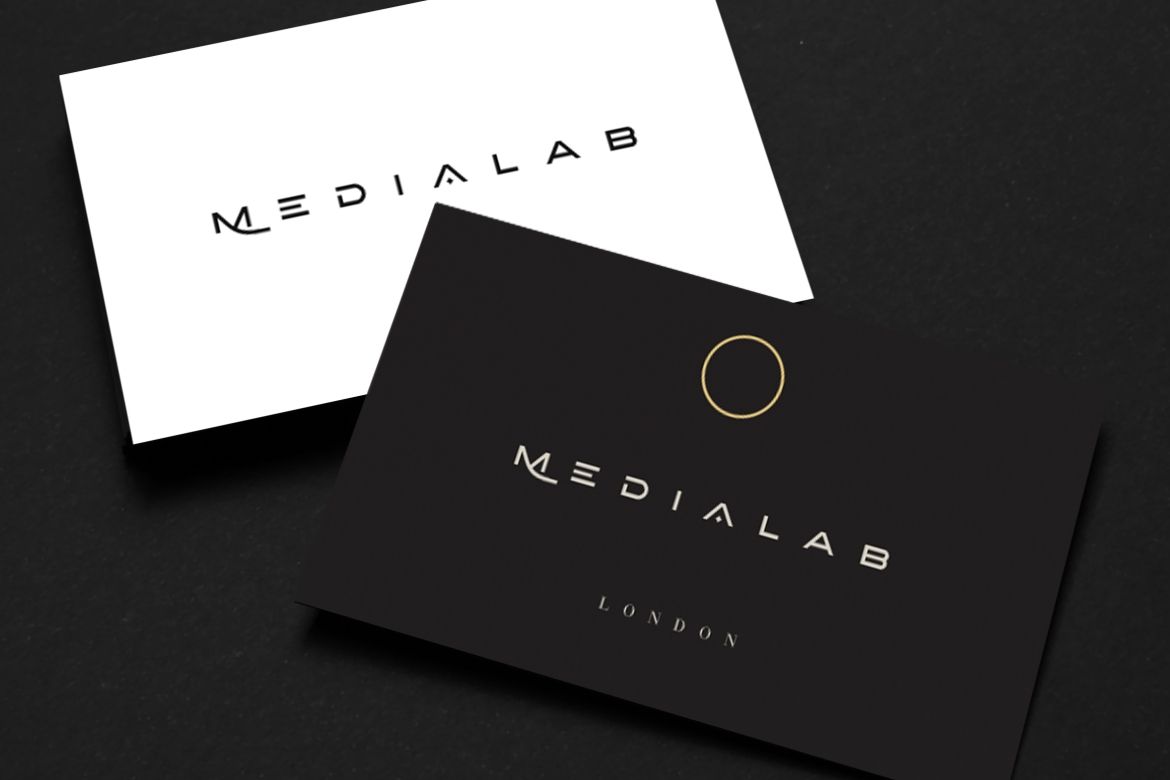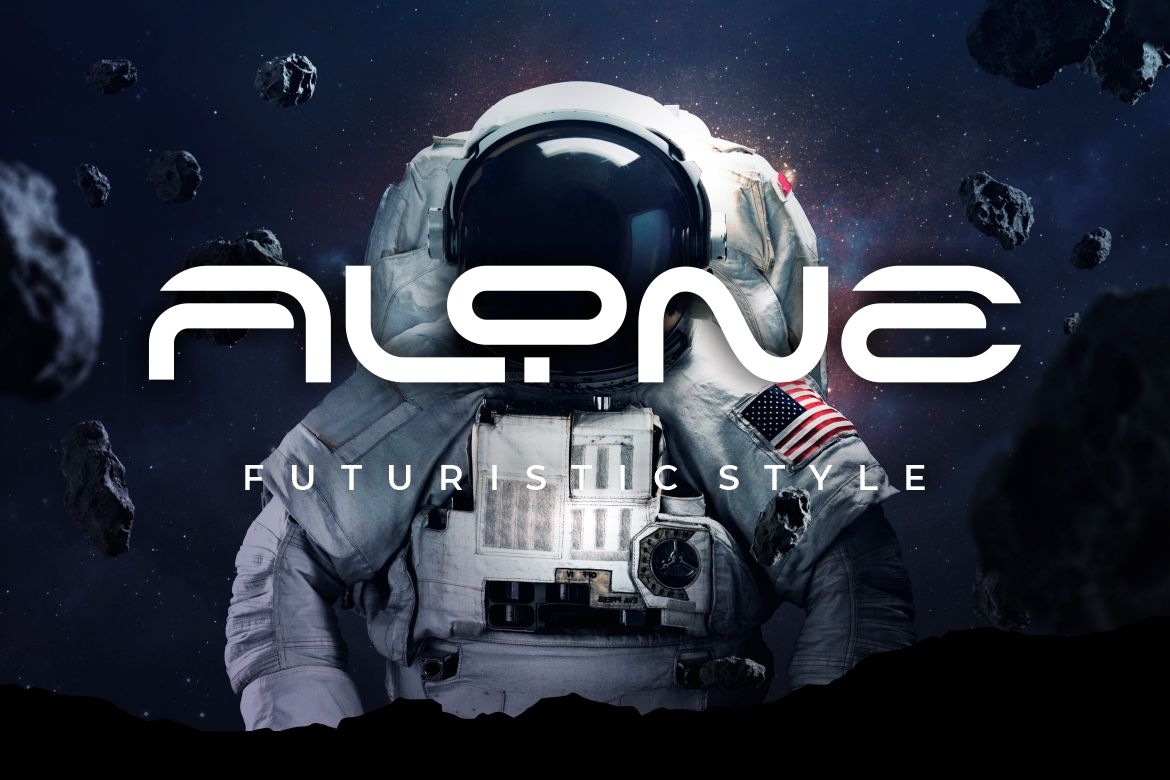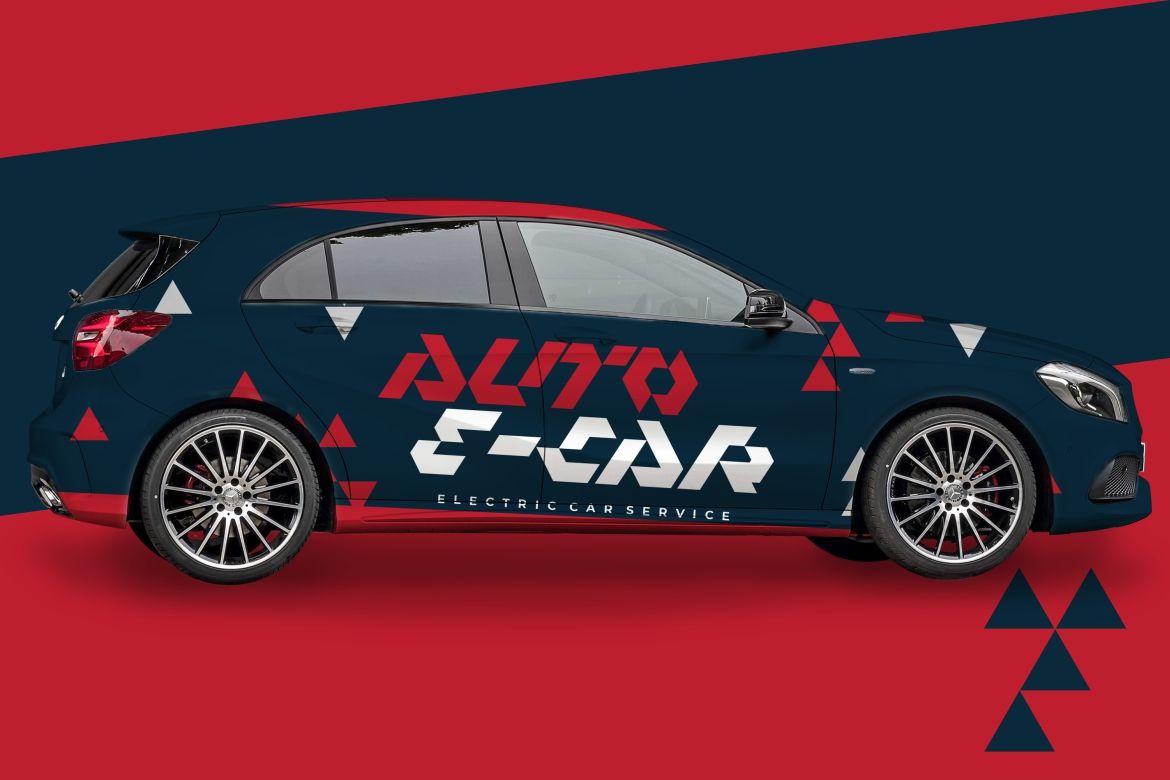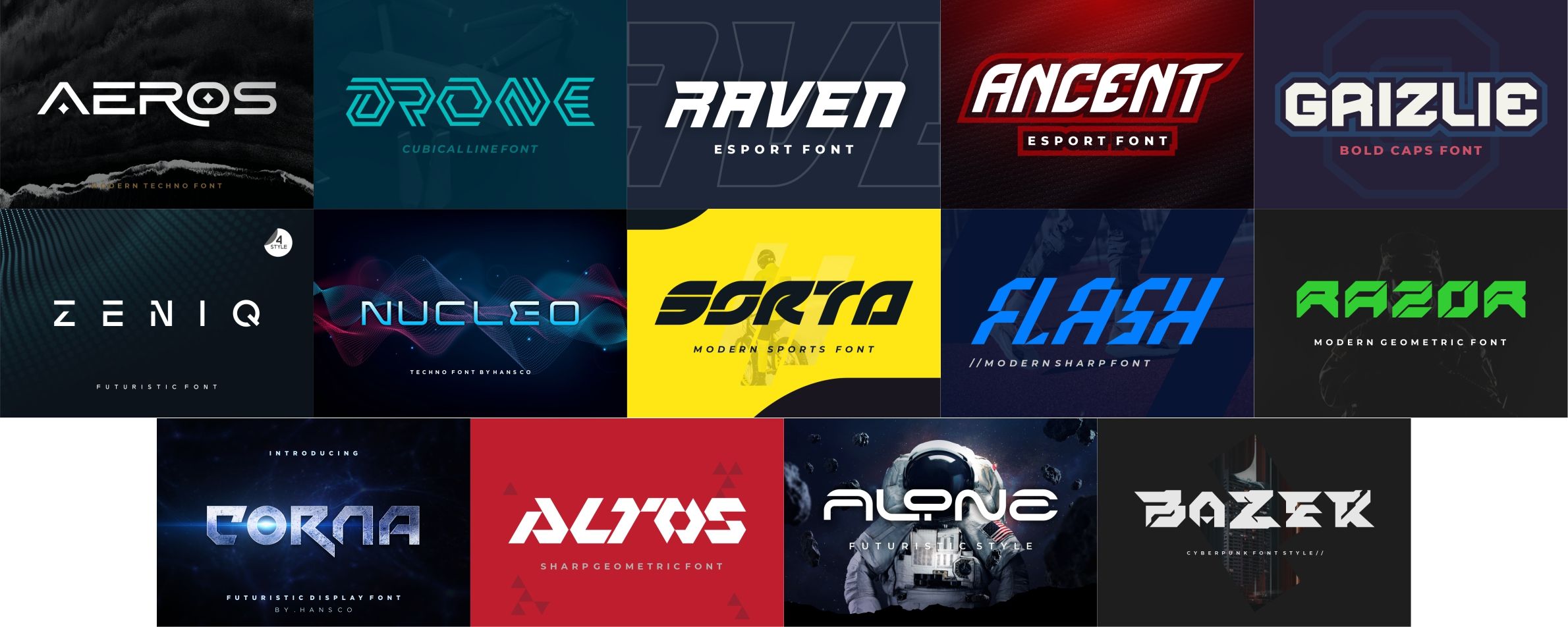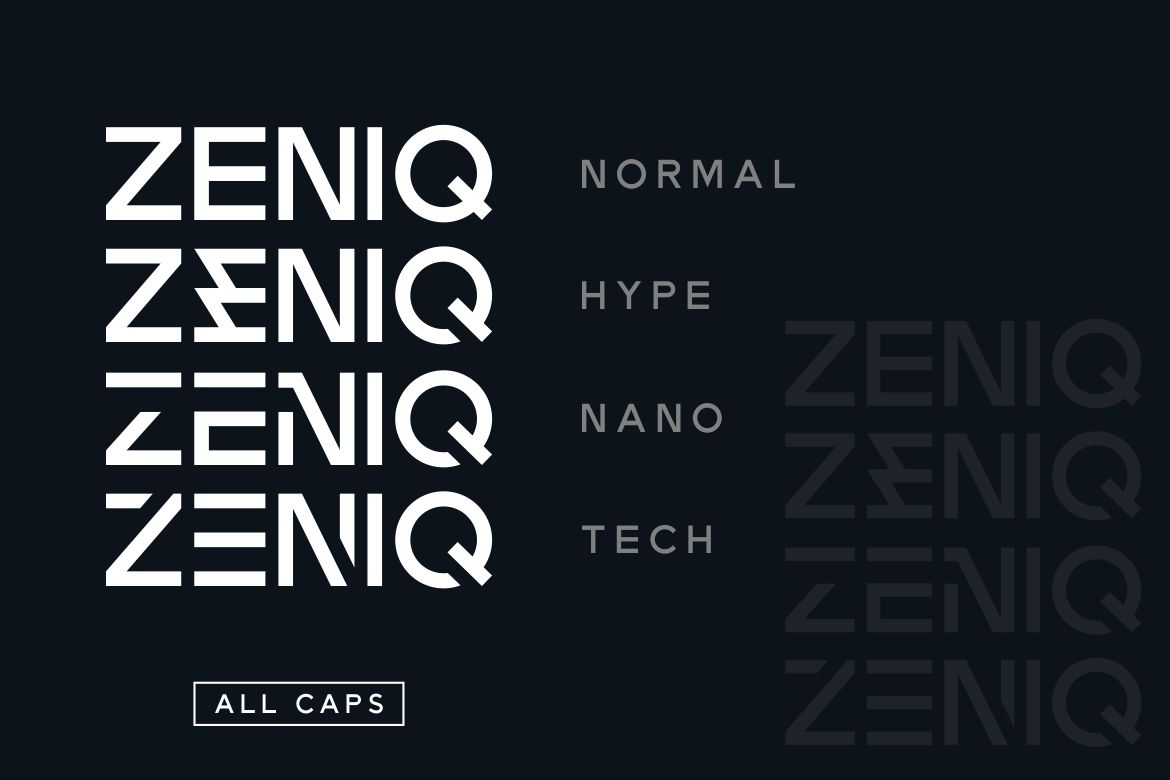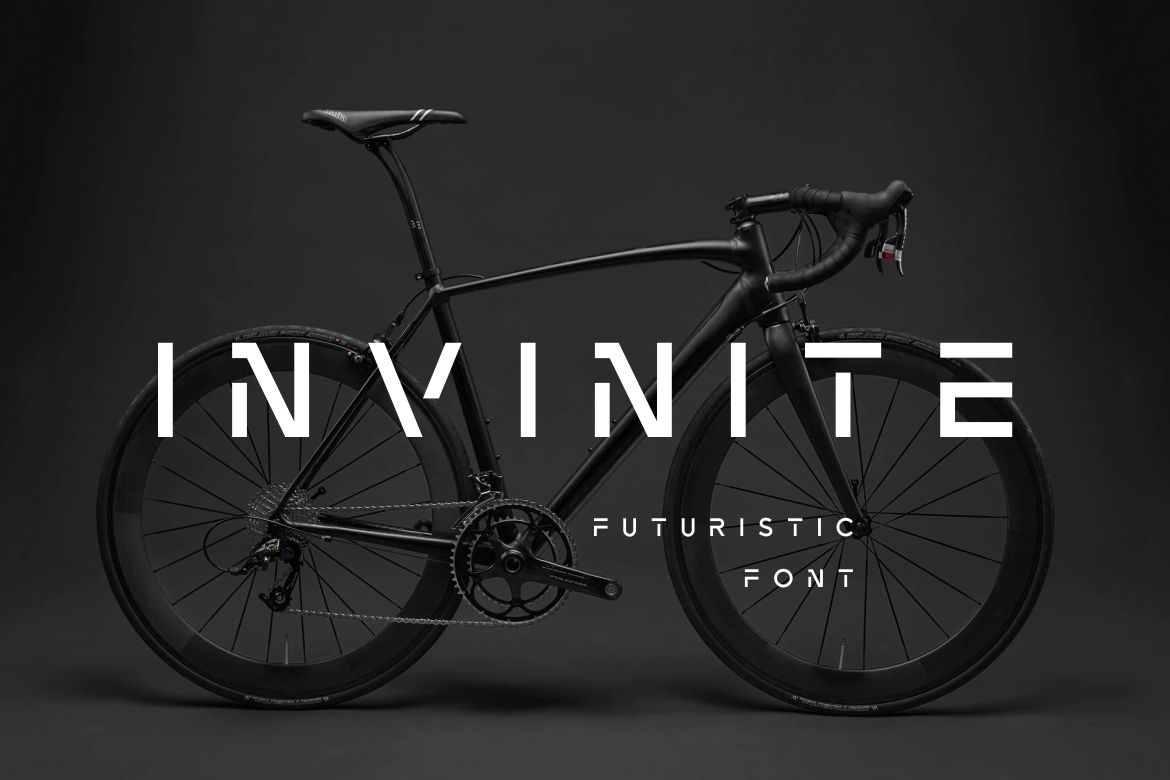
Exploring the Influence of Futuristic Fonts in Today’s Design
Design is a world that never stops evolving; there’s always a new type of a certain element in this landscape. One of the said elements is a font type that influences numerous aspects of today’s visual experiences. Speaking of font types, futuristic fonts are among the types that have now become essential in modern design.
Fonts with futuristic design can help designers portray a vibe of tech advancement from the sci-fi world to their projects. In this article, we will learn more about the history of futuristic typefaces, their general characteristics, and their influence on marketing as well as digital design.
Futuristic Fonts: From Past to Present
The history of futuristic typefaces can be traced back to somewhere between the 1950s and 1960s. That was an era of television and the silver screen that was loaded with science fiction motion pictures. Back then, people were keen to create films with out-of-this-world vibe, and that included the fonts they selected and used in titles and credits. Those visually captivating fonts steadily gained attention, particularly among those sci-fi enthusiasts.
These fonts have now come quite a long way. They have evolved, drawing influence from current tech’s sleek look, sci-fi movies or shows, and high-tech equipment. Fonts like Warzone and Equinox are examples of how diverse and adjustable these fonts can be. Today’s designers have a plethora of free and paid choices to experiment with in order to add a touch of futuristic vibe to their work.
As a result, these futuristic-looking fonts have progressed from being supporting actors in sci-fi motion pictures to the major stars of today’s design. The sci-fi appeal is still there, but there is also the look and vibe of today’s tech environment. You can find these fonts everywhere, whether you’re enjoying sci-fi flicks or even just scrolling through the internet.
General Characteristics of Futuristic Fonts
Regular people may not be able to point out directly that it’s a futuristic font. Despite being so, futuristic-styled fonts are essentially easy to notice because of their characteristics. Let’s break down the characteristics of these fonts below.
1. Crips lines
Assume the fonts you usually use in your projects have a visual like that of handwriting with a wavy line. Futuristic-styled fonts, on the other hand, are the polar opposite. They have straight, crisp lines, giving your text a new, fresh look.
2. Geometric elements
These futuristic-styled fonts are friends with geometric shapes such as triangles, circles, and squares. They borrow some elements from geometric shapes to give off a sleek and futuristic look. Consider it the font that is comparable to sleek, futuristic architecture.
3. One-of-a-kind letterforms
Each font type follows its own rules, including these guys. Futuristic-styled fonts can be considered rebels with their style. They come with thick letters, curves, or double lines that twist in an unpredictable manner. It’s like they are performing a dance no one can do.
4. Minimalism
Futuristic fonts dislike fuss and frills because they are a part of the minimalist font type. So, everything in these fonts is simple and sleek. This simplicity makes them have a modern visual that is ideal for today’s high-tech society.
So, these fonts do more than simply make your design project look fancy. They come with a superpower to tell stories about advanced tech and greatness. When you stumble upon a futuristic font, it’s like you are sneaking a glimpse of something authentic and innovative. They don’t follow the usual norms, which makes them ideal for showcasing something fresh.
Futuristic Fonts in Marketing
Fonts in futuristic style are now widely used for marketing purposes. When it comes to marketing, the influence of these fonts is more than just an aesthetic option. These fonts are essential for creating identities for brands, conveying messages, as well as distinguishing one brand from another. Let’s take a look at how world-class brands like Tesla and SpaceX are adopting futuristic-styled fonts to express their values and stories.
1. Standing out with one-of-a-kind style
Imagine an overcrowded market where sellers are shouting to promote their products. Futuristic-designed fonts function as stylish icons, helping sellers or, in this case, brands to differentiate themselves from their competitors. Consider the sleek font of Tesla’s logotype; it uses a futuristic font that sets the brand apart and makes it unforgettable.
2. Addressing technology
Brands like Tesla or SpaceX use futuristic-styled fonts to communicate visually that they are advanced tech industries. When you use these fonts in company logos or advertisement content, it’s as though they are saying, “We’re leading the way, not just keeping up.” So, it’s like a code that proves they are tech giants.